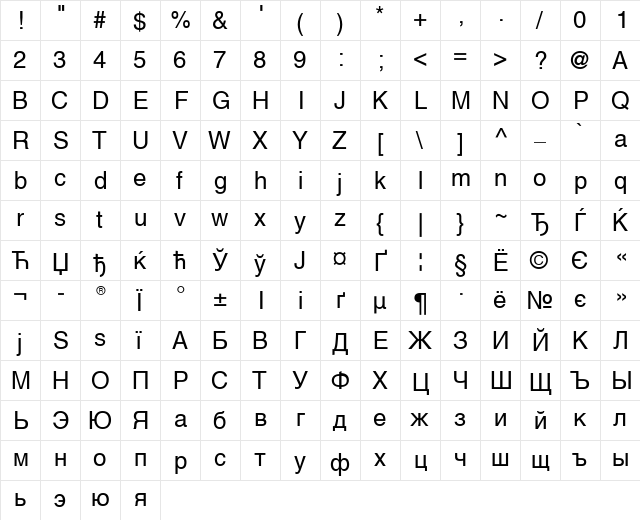
HelveticaCyr Upright Regular
Design Context for HelveticaCyr Upright Typeface
HelveticaCyr Upright offers clean, dependable letterforms without strong stylistic allegiance, making it a practical choice for designers who need flexibility.